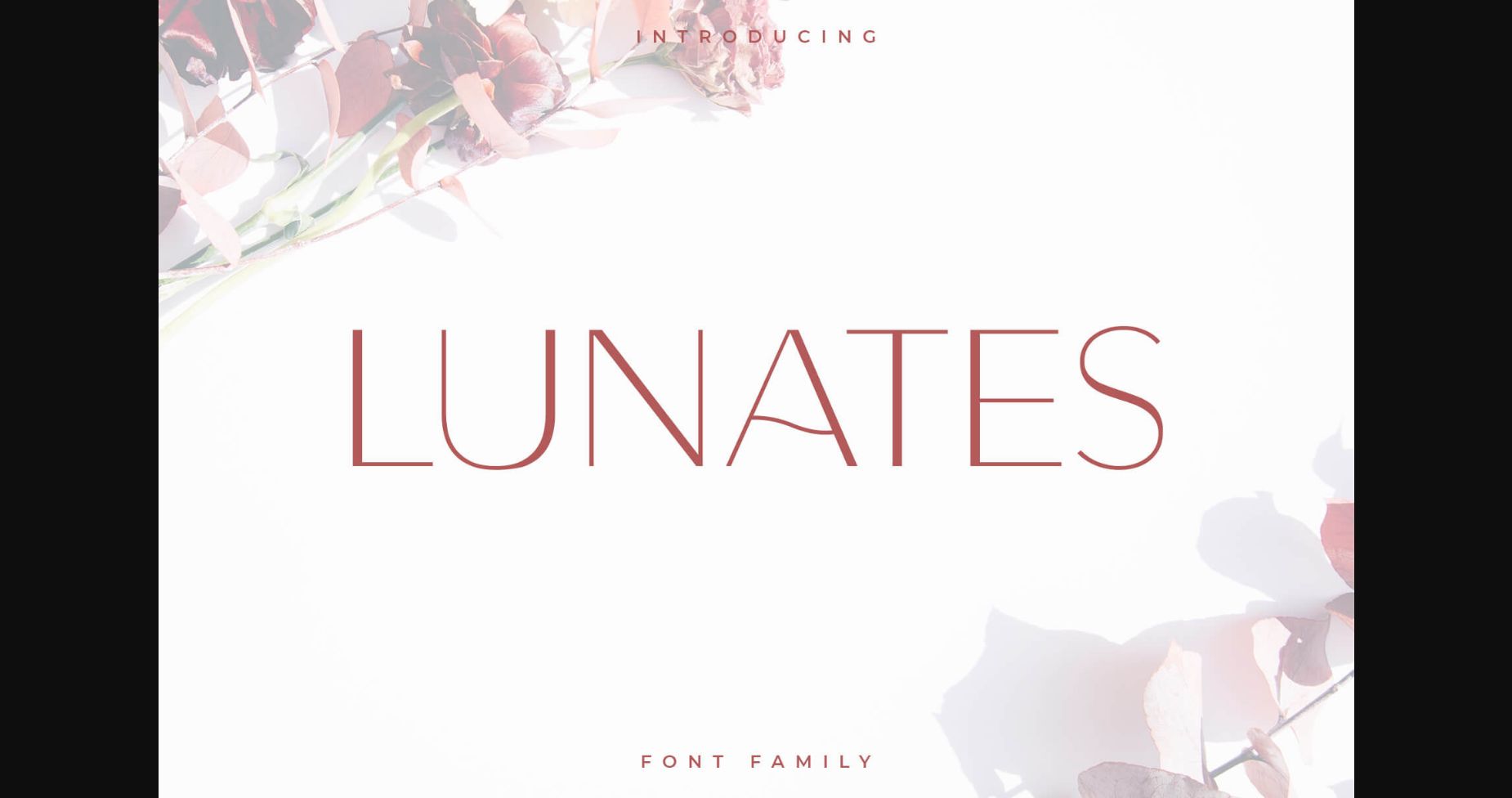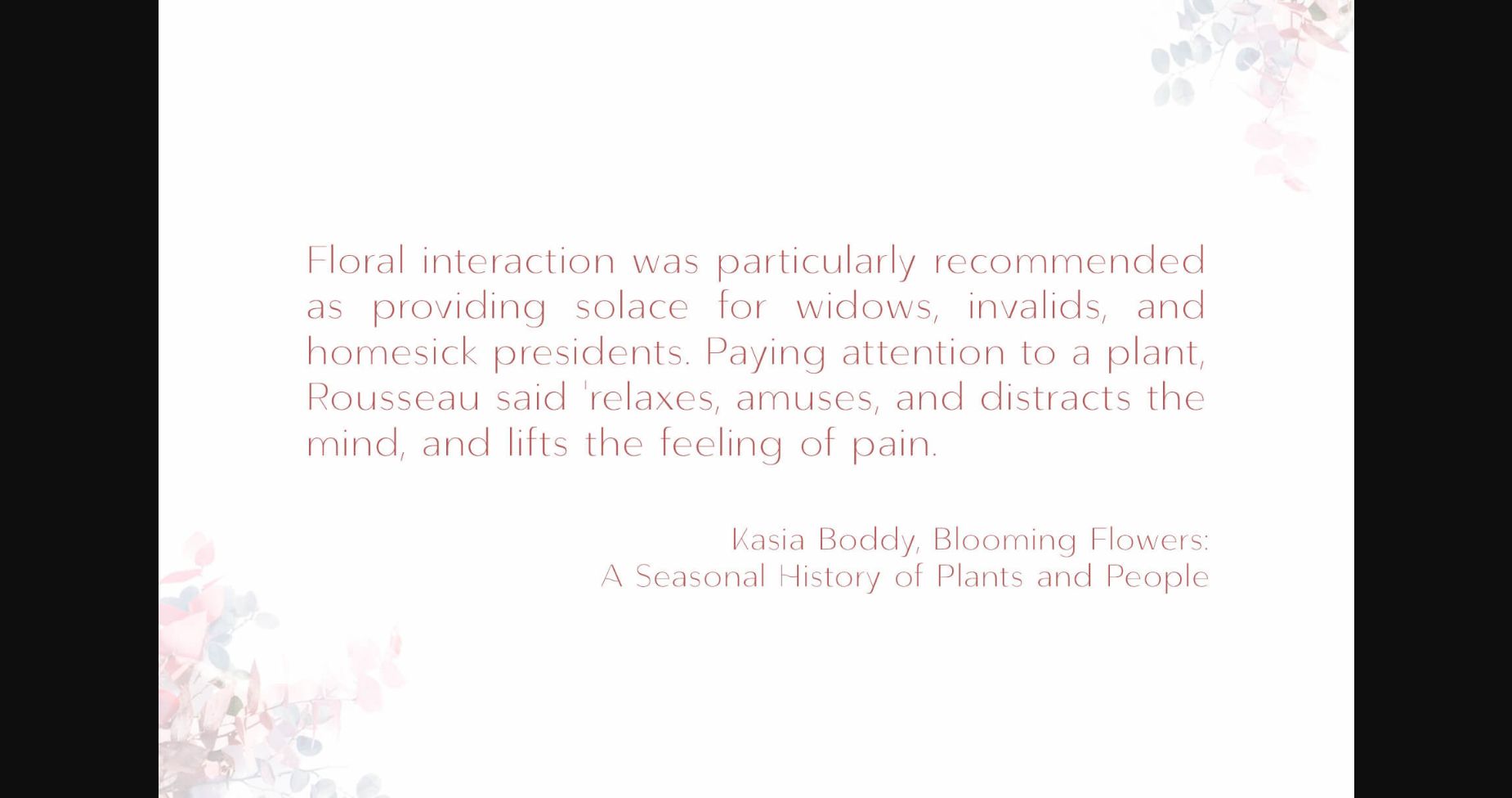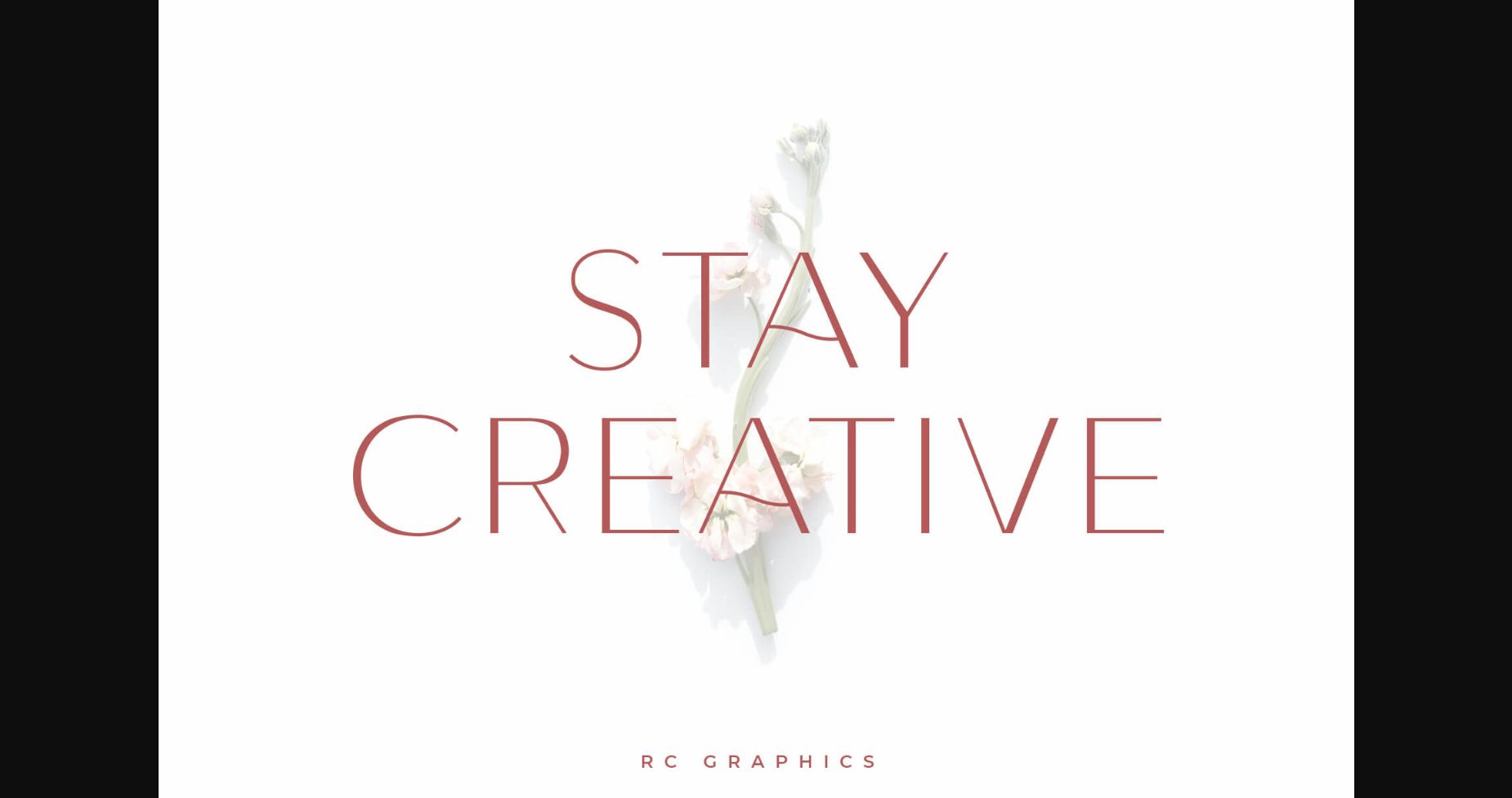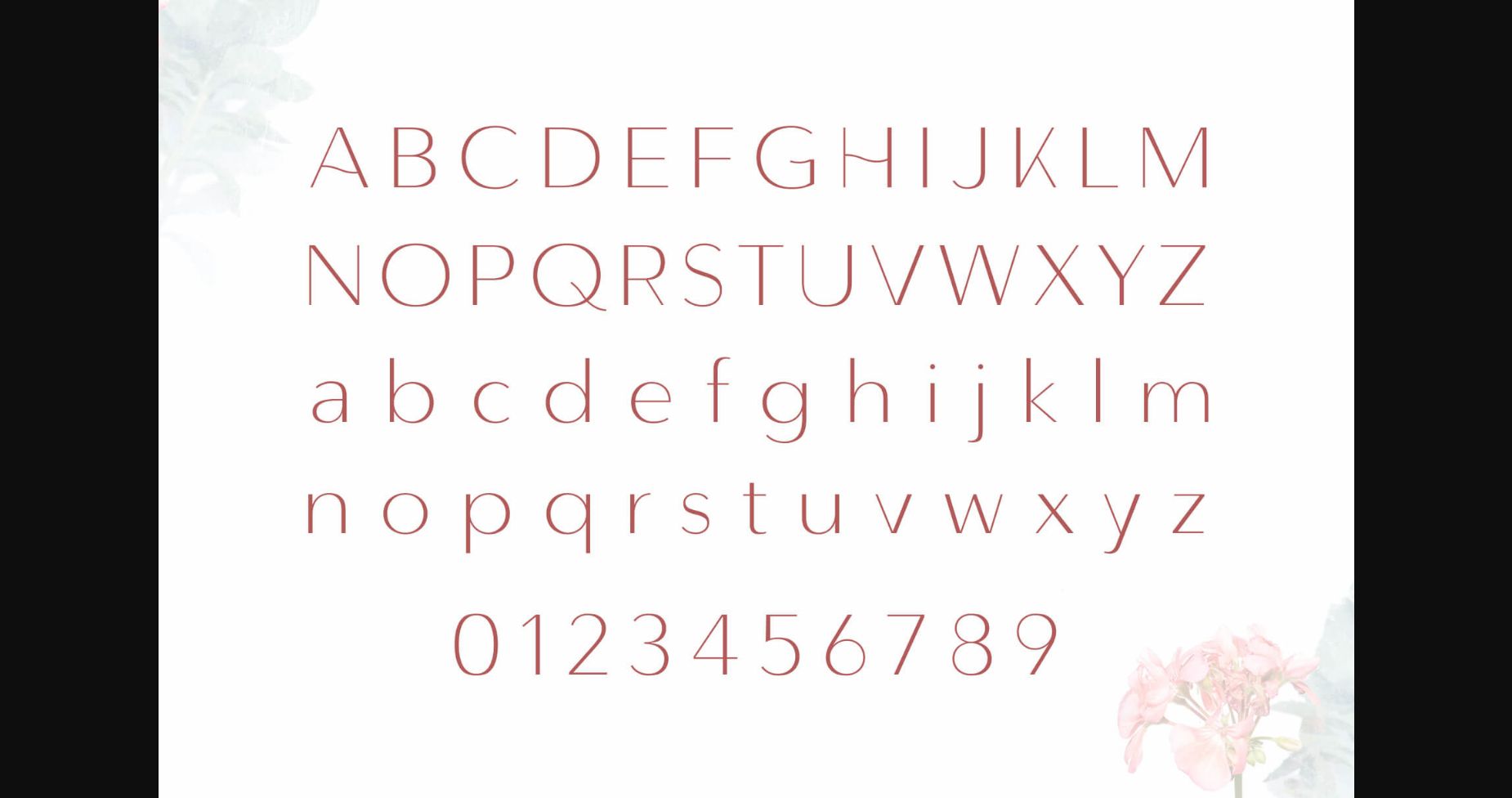
Lunates Font
About Lunates Font
Lunates is a delicate and thin lettered sans serif font. Add it to both personal and formal creations and notice how effortlessly they stand out.